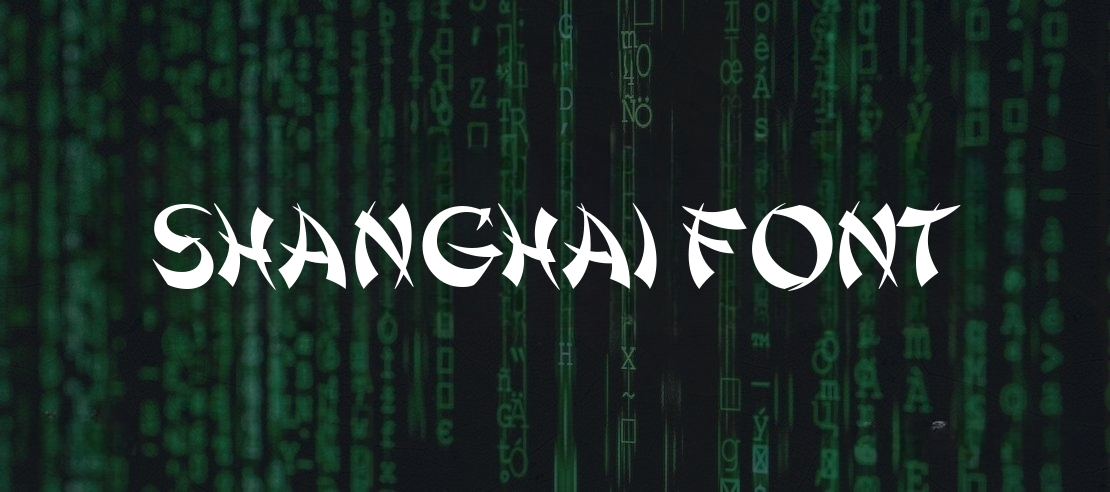
In this article, I shall introduce to you a funny and interesting typeface. Shanghai Font is an awesome and stylish typeface. It is a comic typeface. A British typeface designer created this typeface.
Shanghai typeface is available in two different styles Regular and Bold. This typeface is mostly used in posters, logos, banners, fashion designs, T-Shirt designs, shop names, magazine covers, book titles, product packaging, and invitation cards.
Shanghai typeface has a complete set of 186 characters including upper and lower case letters, numbers, symbols, and special characters. This typeface also contains a set of 133 glyphs. It also supports many different languages. This typeface is identical to the nightmare font.
This lovely and attractive typeface is designed by British typeface designer Nathan Caldecott in 2009.
This font style is created with a unique and consistent style. This single attractive style is a combination of multiple characteristics, including capital and small letters, digits, punctuations, symbols, special characters, glyphs, and various language support.
| Name | Shanghai Font |
| Style | Comic |
| Designer | Nathan Caldecott |
No, both are not the same typefaces. Shanghai typeface is a comic typeface whereas Helvetica is a Sans Serif typeface.